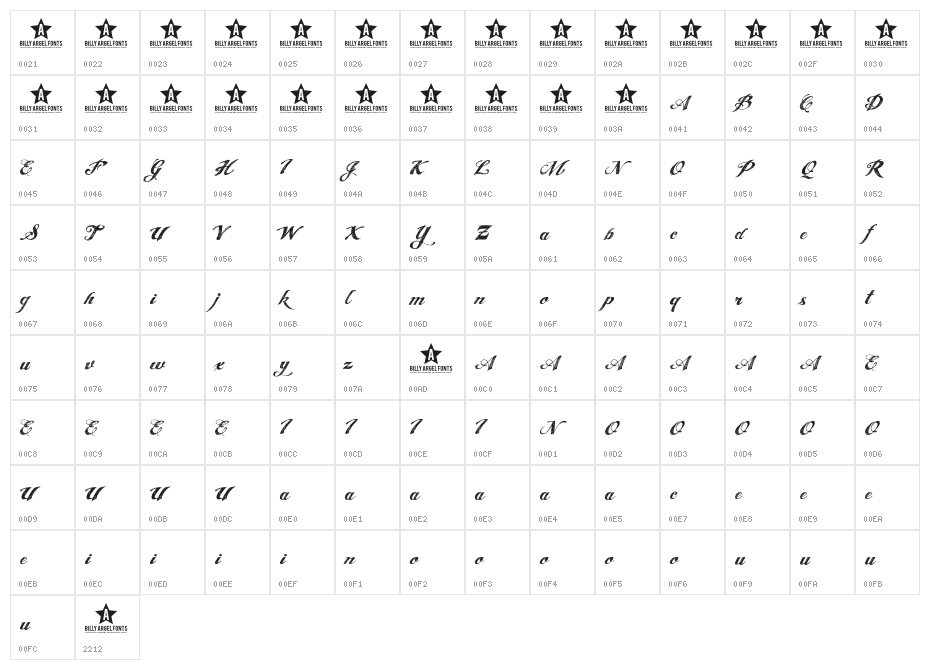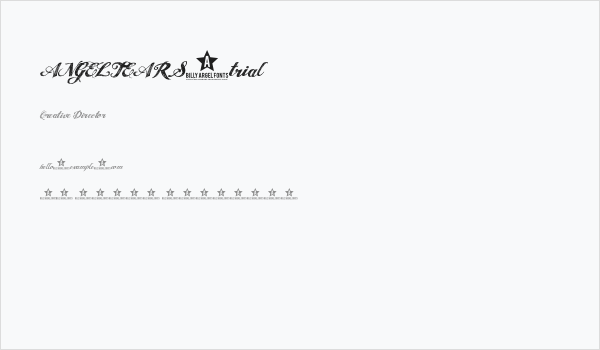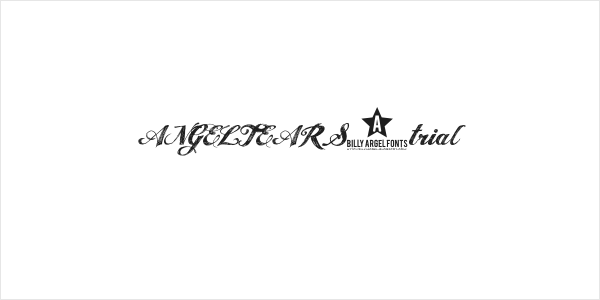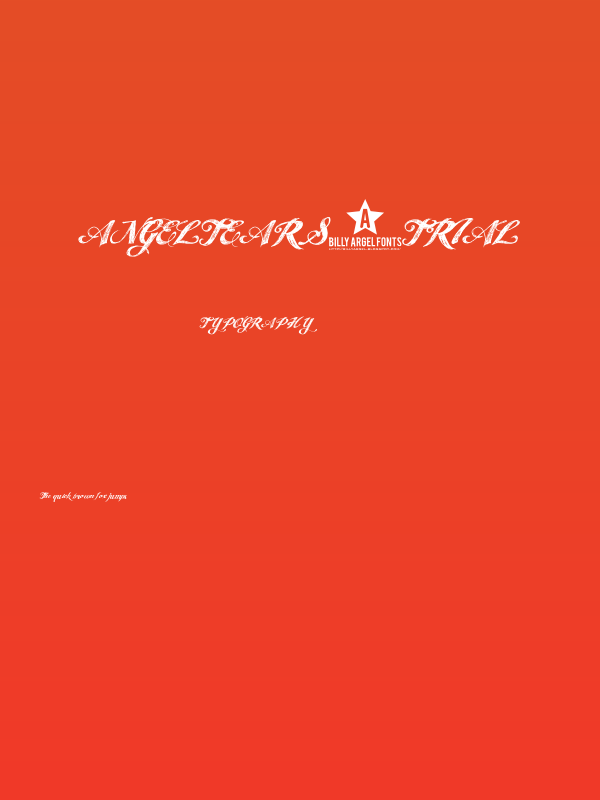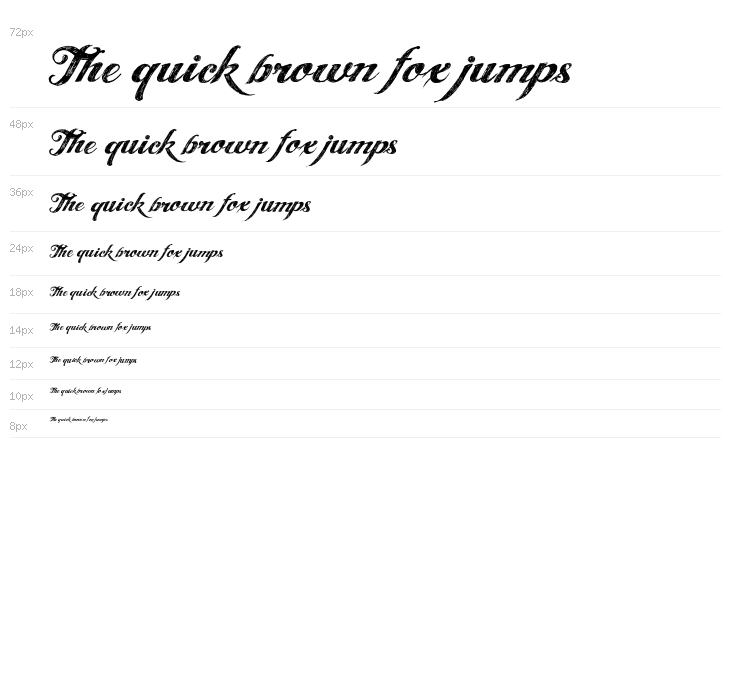
ANGELTEARS-trial Font
ANGELTEARS-trial Description
This font features an elegant and dramatic script style with intricate swashes and flourishes. The uppercase letters are particularly ornate, with sweeping lines that convey a sense of movement and grace. The lowercase letters maintain a consistent flow, complementing the uppercase with a slightly more restrained design. The font's overall appearance is reminiscent of calligraphy, making it suitable for projects that require a touch of sophistication and artistry. The characters are well-spaced, ensuring readability despite the decorative elements. This font is ideal for creating eye-catching headlines, invitations, or branding materials that demand attention.
Use CaseHeadlines, Invitations, Branding
Proposed ProjectsIdeal for wedding invitations, elegant branding, artistic posters, and decorative headlines.